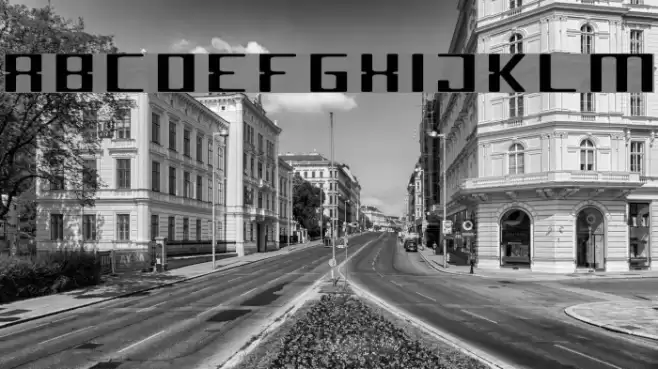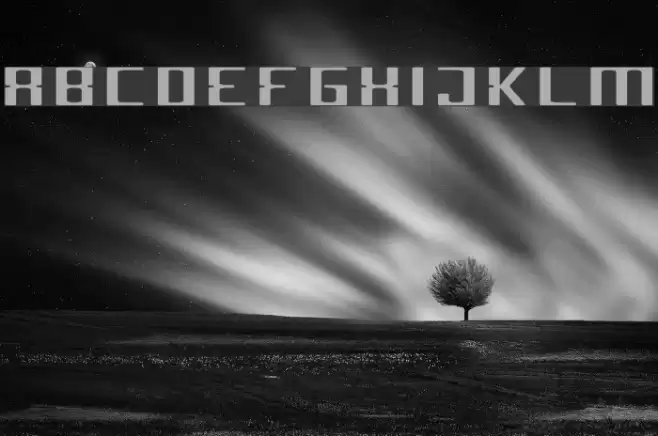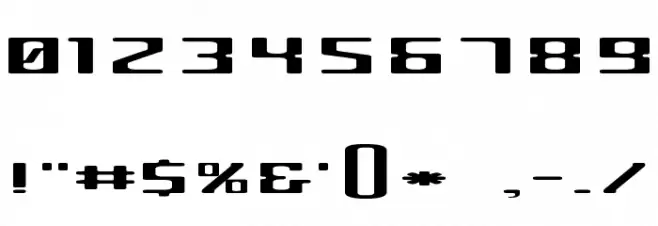
Criminal Wide Font
Criminal Wide Description
This font features a bold, geometric design with a distinctively wide stance. The characters are constructed with sharp angles and a uniform stroke width, giving it a modern and industrial feel. The uppercase letters are particularly striking, with a blocky appearance that commands attention. The lowercase letters maintain the same geometric style, ensuring consistency across text. Numbers and special characters are designed to match the boldness and angularity of the alphabet, making this font suitable for impactful and eye-catching designs.
- Proposed Projects: Ideal for branding, posters, headlines, and any project requiring a strong, modern aesthetic.